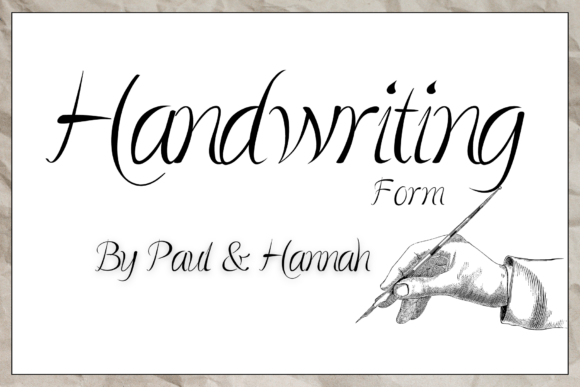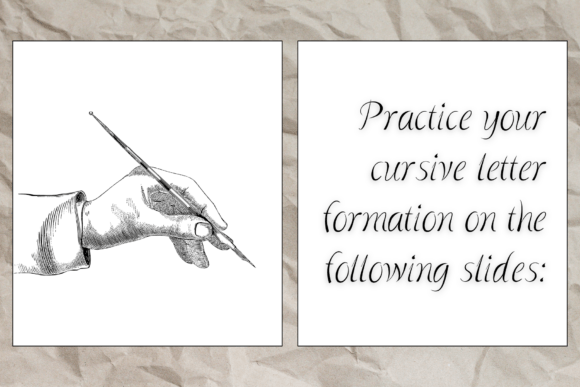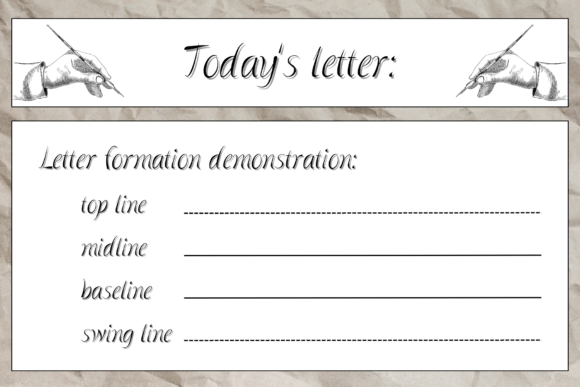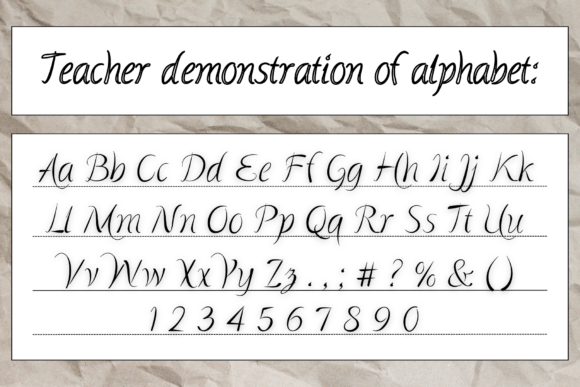
Handwriting Form Font
About the Handwriting Form Font
Elevate your designs with Handwriting Form Font, a font that combines sophistication with readability. HandWriting Form is an exquisite handwritten font, masterfully designed to become a true favorite. It maintains its classy calligraphic influences while feeling contemporary and fresh. Fall in love with it and bring your projects to the highest levels!
HandWriting Form excels in display applications such as logos, short headlines, and invitations where its elegant calligraphic style can shine. It’s ideal for branding projects requiring a touch of sophistication and personality, or for packaging that needs a handcrafted feel. However, its ornate nature makes it unsuitable for body text or UI elements; the intricate details would become illegible at smaller sizes and hinder readability in lengthy passages.
This font’s personality is sophisticated yet approachable. It conveys both elegance and a friendly warmth. Pair it with a clean sans-serif like Montserrat for a balanced contrast, or a geometric sans-serif like Futura for a more modern feel. For a touch of playful contrast, consider pairing it with a script font that has a less formal, more whimsical feel, but ensure legibility remains a priority.
Using HandWriting Form sparingly, as an accent, will maximize its impact and prevent visual overload. Avoid overwhelming designs with too many elements in this style.
Handwriting Form Font Usage Examples
Handwriting Form Font Example